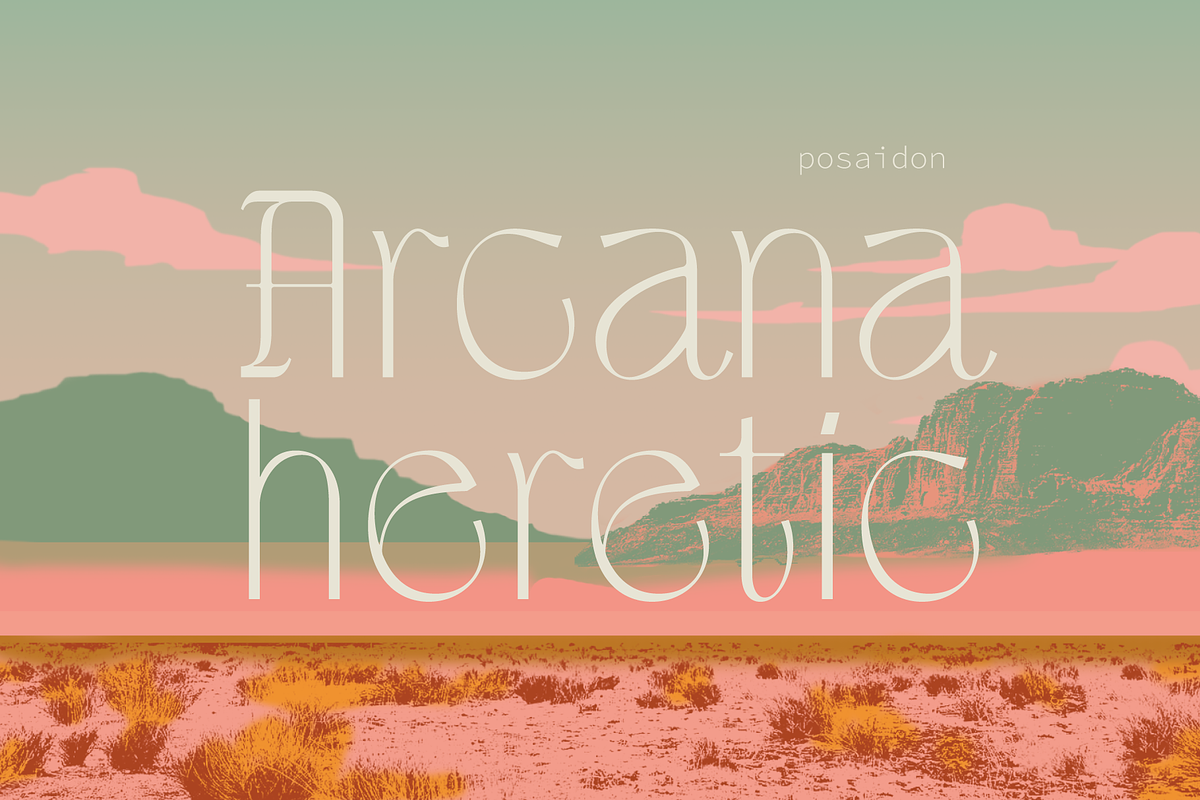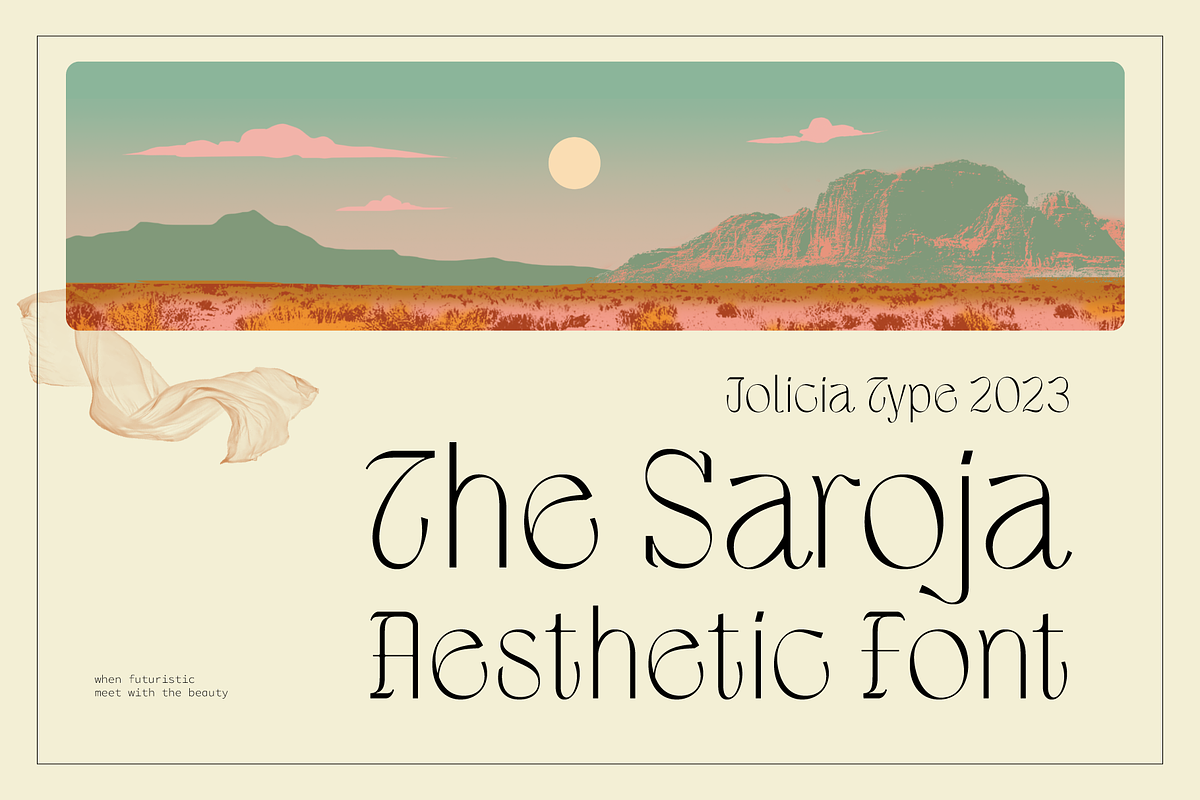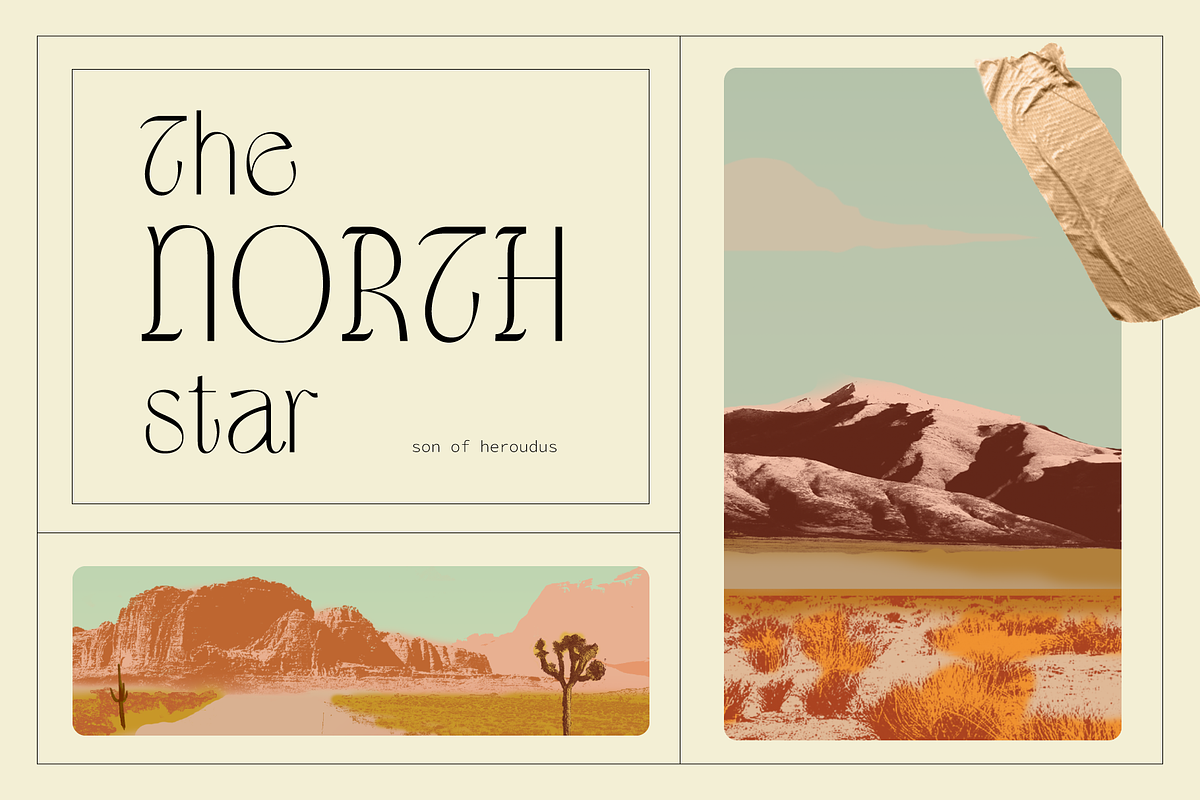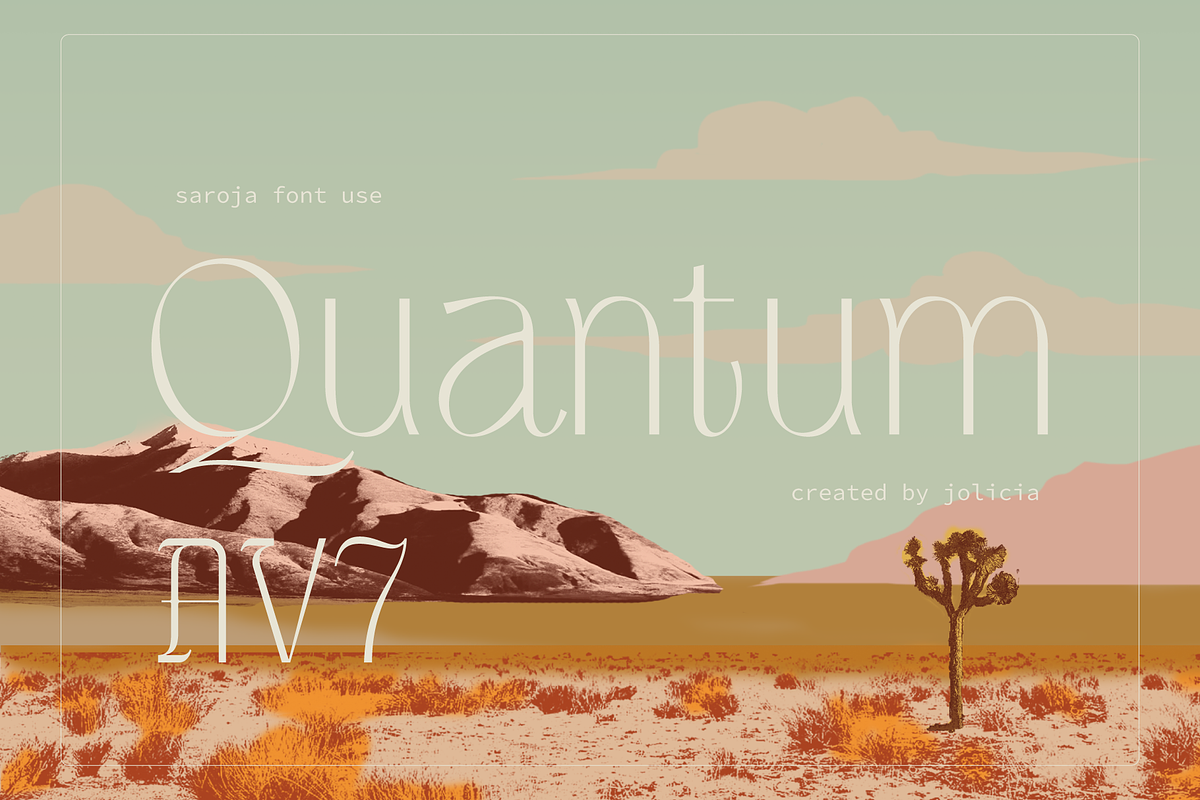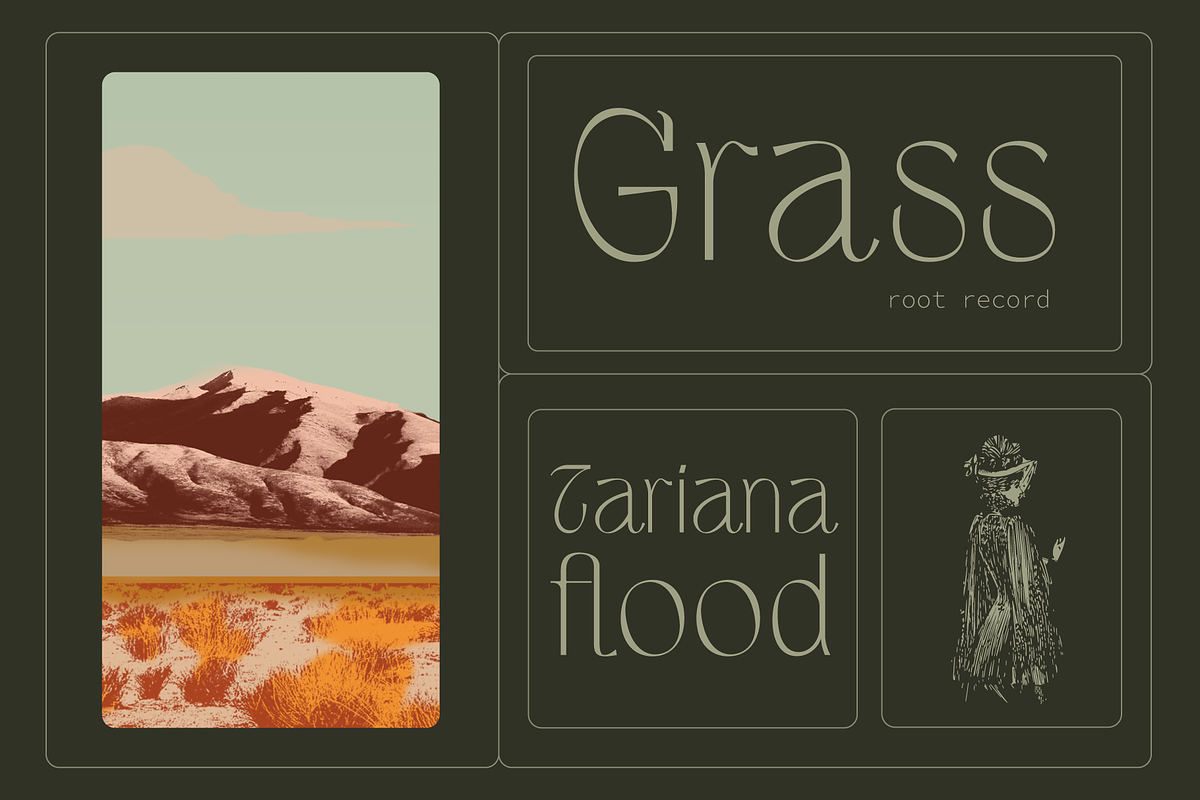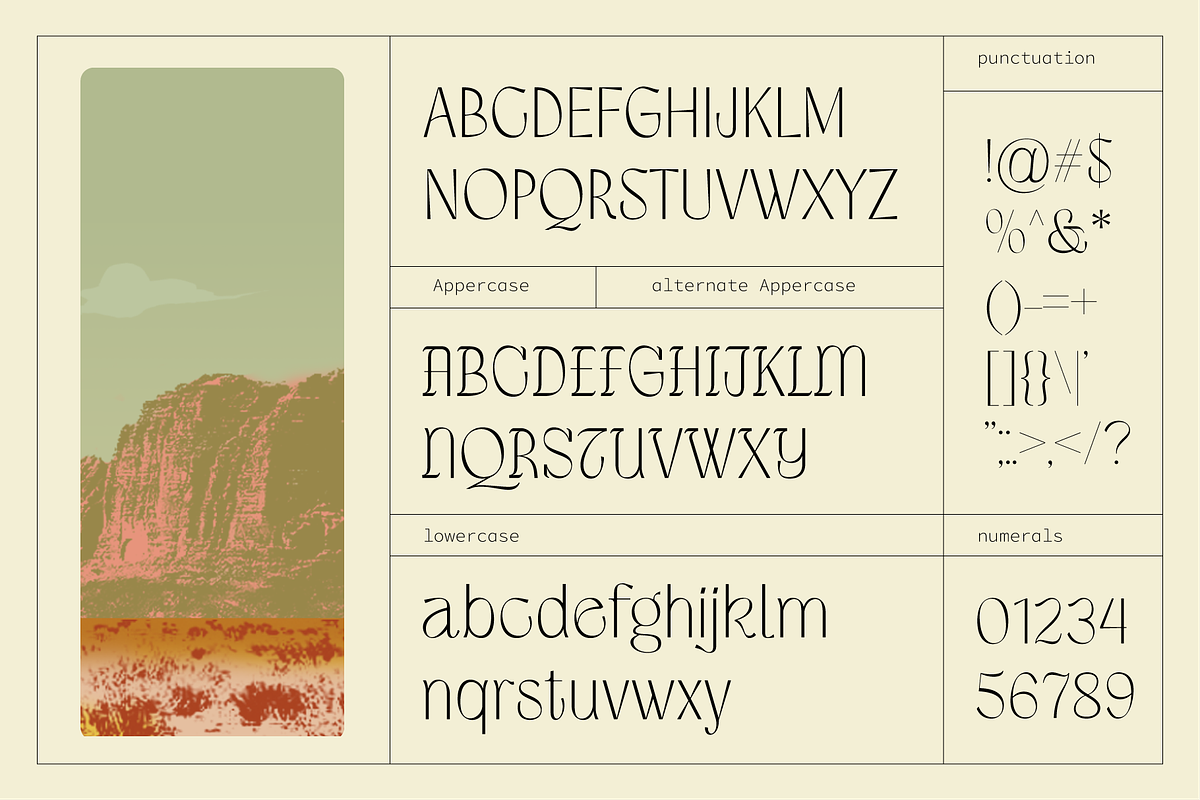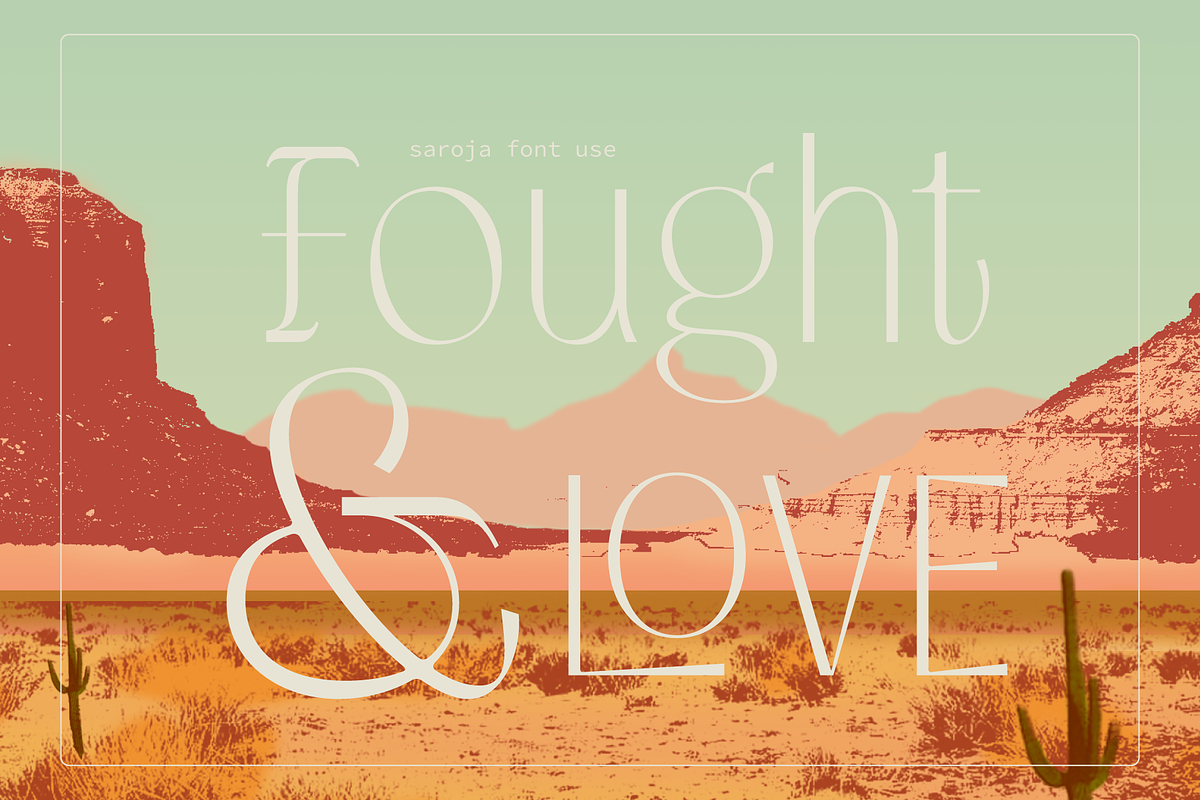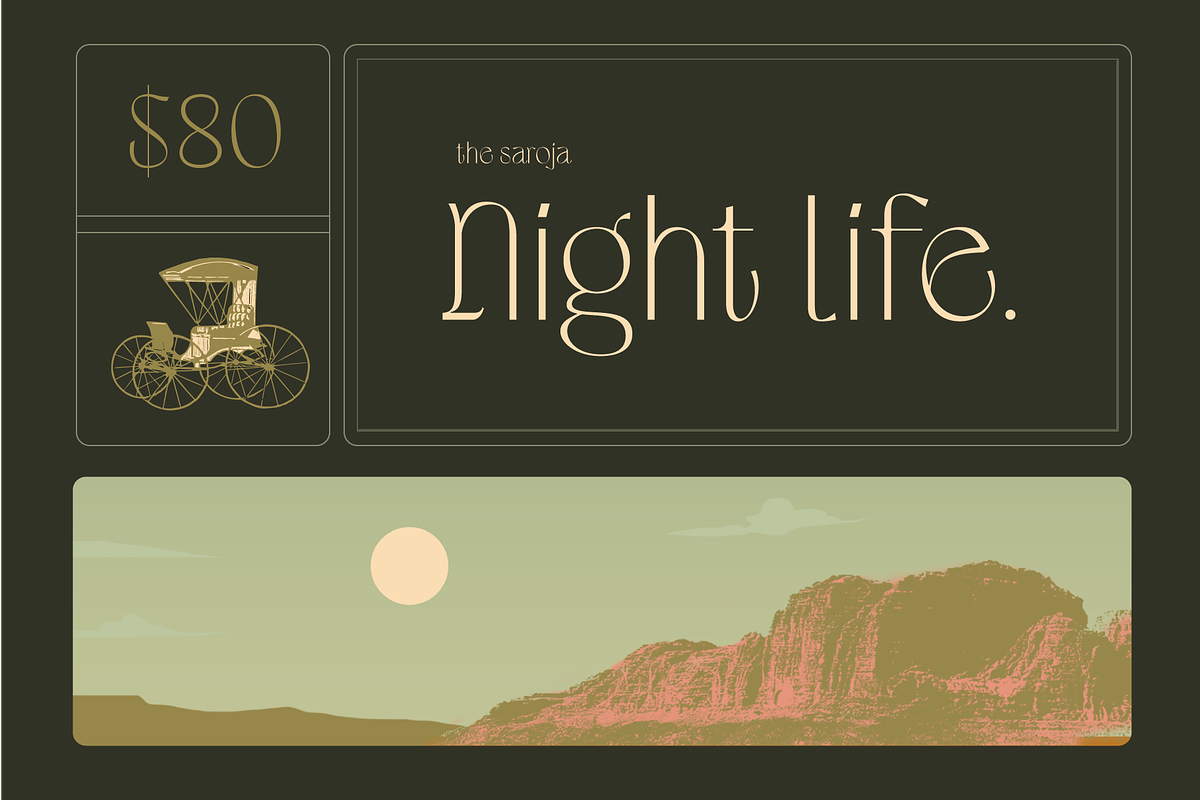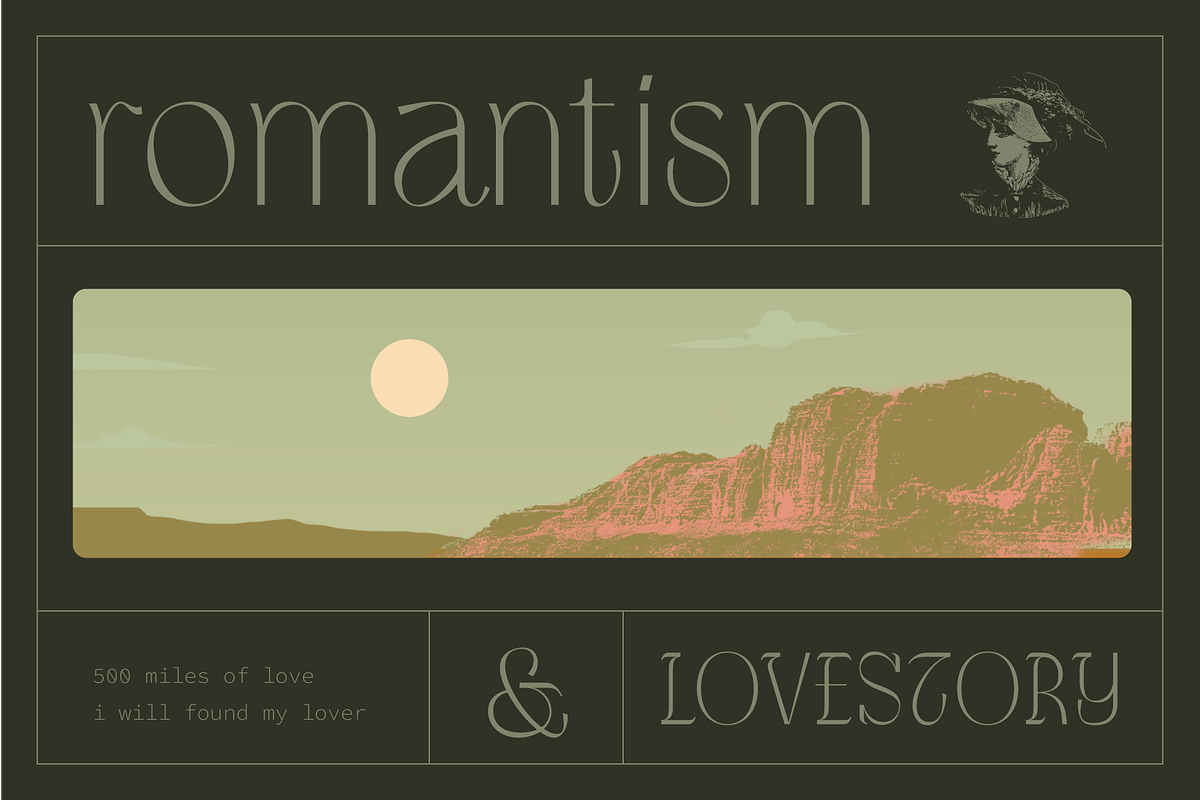
The Saroja | Aesthetic Font
The Saroja is a meticulously crafted display font type that brings captivating aesthetics to every design project. With distinctive characteristics and various artistic elements, this font breathes new life into your text. Key Features:
- Captivating Aesthetics: Every letter and character in The Saroja is designed to exude exceptional visual charm. This font combines artistic elements with subtle typography.
- Diverse Styles: The Saroja comes with various style variations and character sizes, allowing you to tailor text to your project needs, from bold headlines to more delicate text.
- Creative Expression: This font invites you to blend its letters with various design elements, enabling limitless creative expression. Recommended Uses: " Branding: Create a unique and impressive brand identity by using The Saroja in logos, slogans, and marketing materials. " Graphic Design: Use this font to design standout posters, brochures, or banners. " Art Projects: Make The Saroja an integral part of digital art, illustrations, or paper-based art projects. " Web Design: Infuse a unique and aesthetic look into your website by incorporating this font into design elements. With The Saroja you have access to a creative tool that allows you to bring aesthetic beauty to all your design projects. It's the perfect blend of art and typography, ready to transform every word into a captivating work of art.